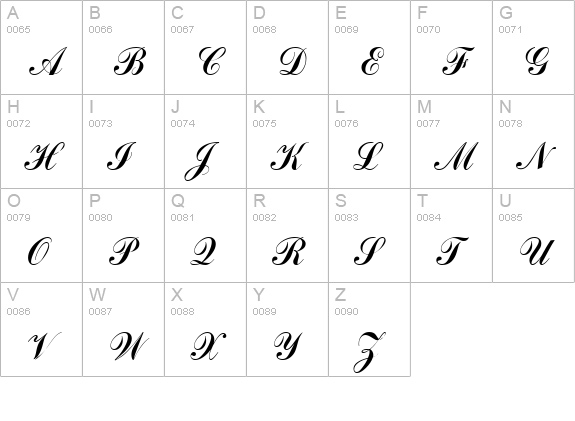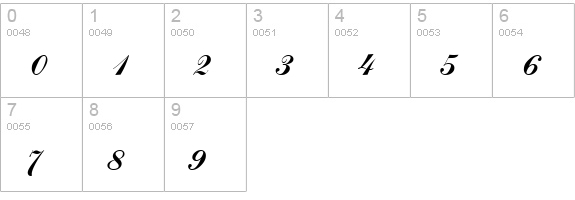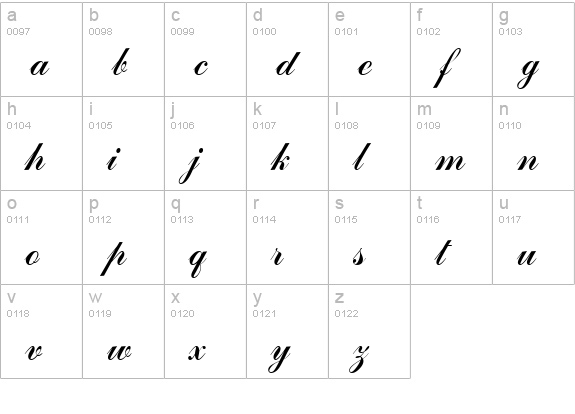
CommercialScript Regular Font Details
CommercialScript Regular is the standard, neutral variant in the CommercialScript typeface family \xE2\x80\x94 well suited to general body text, paragraphs, and standard typographic work.
CommercialScript Regular is a sophisticated and elegant font that exudes charm and style. With its flowing cursive script and clean lines, this typeface is perfect for adding a touch of class to any project. Whether you're designing a wedding invitation, creating a logo, or crafting a branding package, CommercialScript Regular will elevate your work to the next level. The best part? CommercialScript Regular is available for free download at FontsMarket.com. That's right, you can get your hands on this stunning font without spending a dime. So why wait? Enhance your designs with the timeless beauty of CommercialScript Regular today!